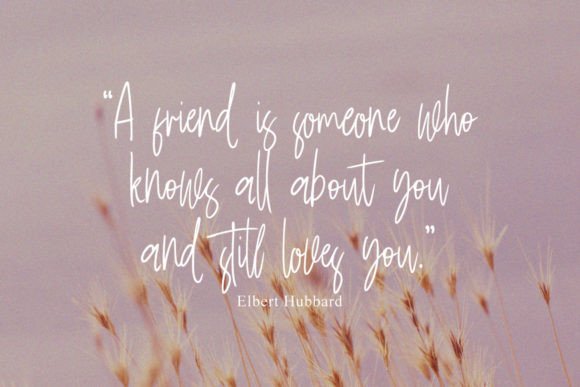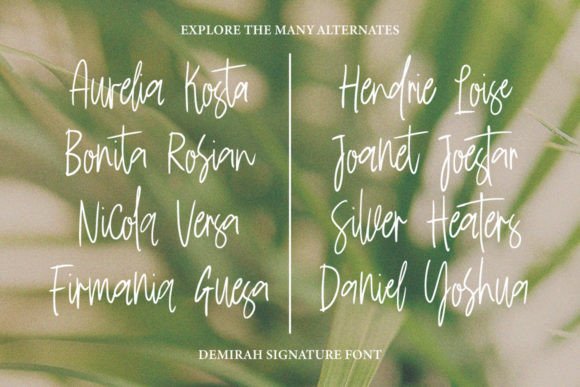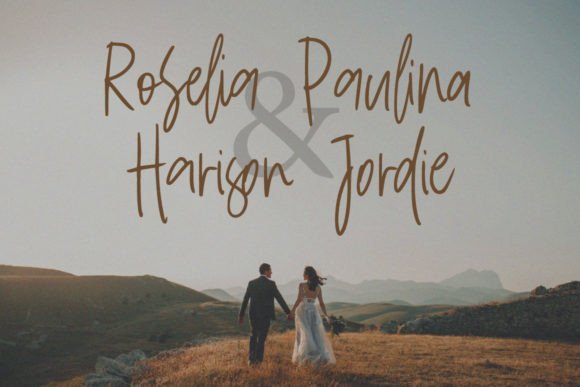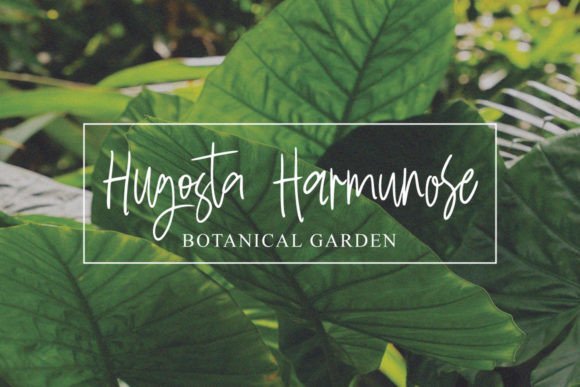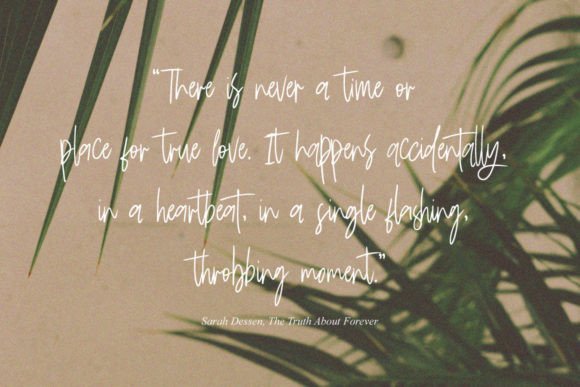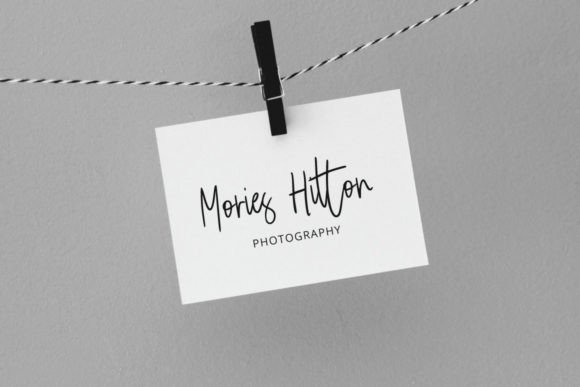
Introduction to Demirah Font
Have you ever been working on a creative project and suddenly, everything falls into place? The colors, the typography, the overall vibe – it all comes together to create something truly special. For designers, those moments are what make all the hard work worth it. And, for those who want to elevate their designs to the next level, there’s one font that stands out from the rest: Demirah Font.
With its classic letterforms and elegant curves, Demirah Font is the perfect addition to any design project. Whether you’re working on a branding campaign, packaging design, or any other high-end creative project, this font is sure to bring a touch of sophistication and refinement. As a valuable design resource, Demirah Font is a must-have for designers who want to create truly exceptional work.
Key Features of Demirah Font
- Features a transparent background, making it easy to overlay on any image or design without compromising its appearance.
- Supports a wide range of resolutions and sizes, from small text to large headings, ensuring versatility in its application.
- Perfect for use in digital and print design projects, including logos, branding materials, and marketing collateral.
- Comes in a single weight, providing a clean and modern aesthetic that is easy to read and recognize.
Honest Review: Demirah Font
As a designer, I’m always on the lookout for high-quality design resources that can elevate my creative projects. Recently, I had the chance to work with the Demirah Font, and I’m excited to share my honest review with you.
Here’s what works well: ✨ The Demirah Font has a beautiful, modern design that’s perfect for a wide range of projects. The font is highly customizable, and the transparent background makes it easy to use in any design. I also appreciate the fact that it’s available for free download, making it a great resource for designers on a budget.
Some of the features I love about the Demirah Font include:
- High-quality design with a modern aesthetic
- Highly customizable, allowing for a range of creative possibilities
However, I did notice a few limitations: ⚠️ The font can be a bit overwhelming in certain contexts, and the lack of bold or italic styles can make it difficult to use in certain situations.
Overall, I’m impressed with the Demirah Font, and I think it’s a great addition to any designer’s toolkit. With its high-quality design and free download option, it’s a resource that I’ll definitely be using again in the future.
How to Use Demirah Font
The Demirah Font is a high-quality design resource ideal for creative projects that demand a unique touch. With its elegant and sophisticated design, it’s perfect for designers and artists looking to elevate their work.
Tips for Getting the Most Out of Demirah Font
To get the most out of Demirah Font, use it in conjunction with a transparent background to create a stunning visual effect. You can also experiment with different font sizes and styles to achieve the perfect look for your project.
Common Use Cases for Demirah Font
The Demirah Font is ideal for various creative projects, such as logo designs, branding materials, and even social media graphics. Its high-quality design and elegant style make it a popular choice among designers and artists.